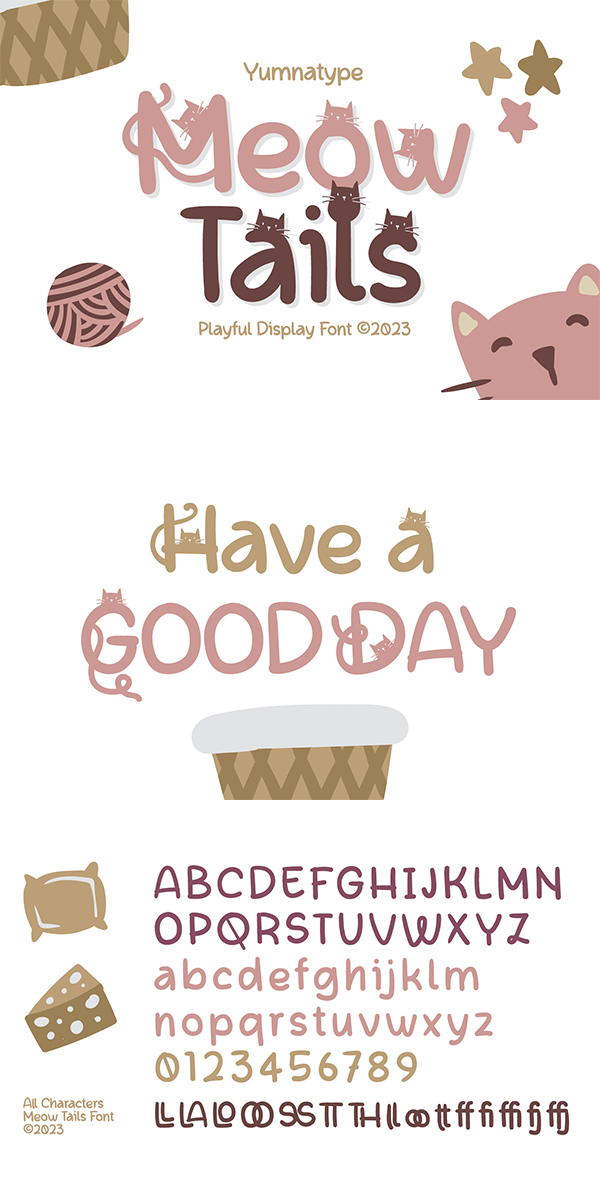
Meow Tails Font
About Meow Tails
Meow Tails is a cute, adorable display font inspired by cat theme. All of its letters and characters are designed in flowing and round shapes to express soft and smooth nuances like a sleeping cat. Furthermore, the insertion of additional objects to the letters functions to suggest a cat’s characteristics, such as cute eyes, whiskers, and a long tail.
Meow Tails fits best for various design projects, such as brandings, headings, magazine covers, quotes, printed products, merchandise, social media, etc. Find out more ways to use this font by taking a look at the font preview.